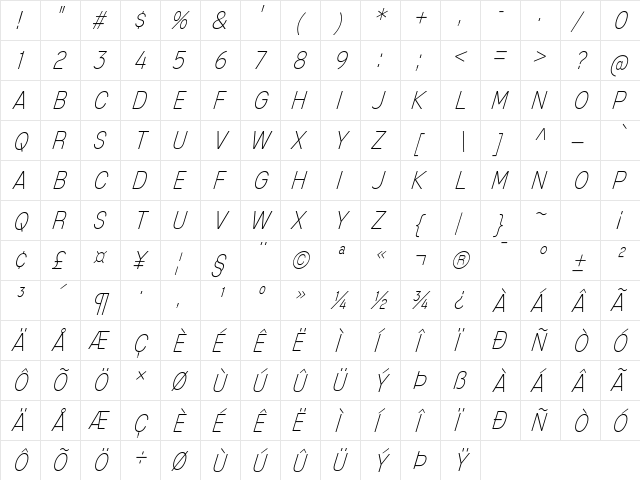
Mixolydian Titling ExtraLight Italic
Design Context for Mixolydian Titling Typeface
Mixolydian Titling is a composed and adaptable typeface that performs quietly and consistently across a wide range of design contexts. The dynamic lean of this cut emphasises speed and emphasis in any layout. The delicate stroke weight brings airiness and refinement to layouts.
Pro Tip: Use Mixolydian Titling for emphasis, pull quotes, and subheadings where its slanted energy can add rhythm to the layout.